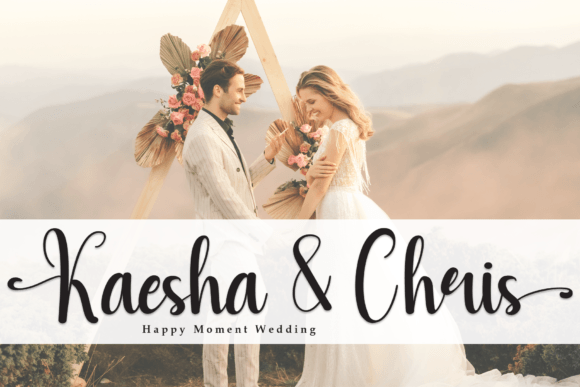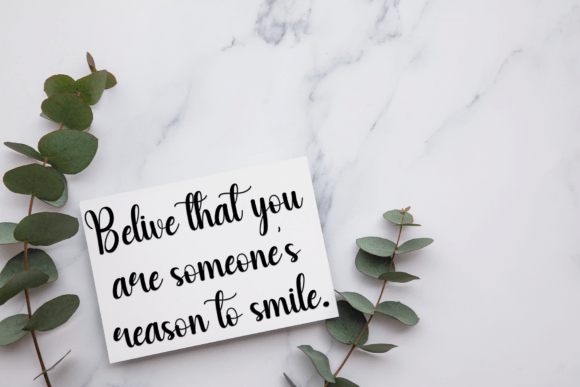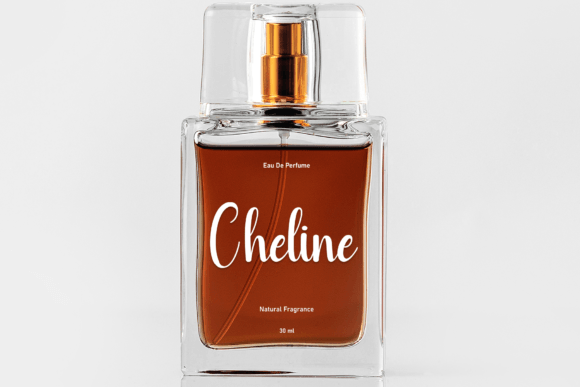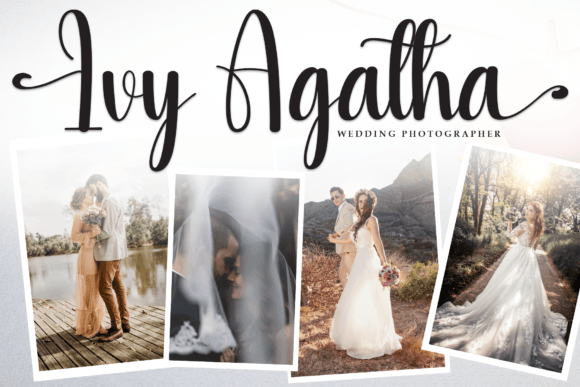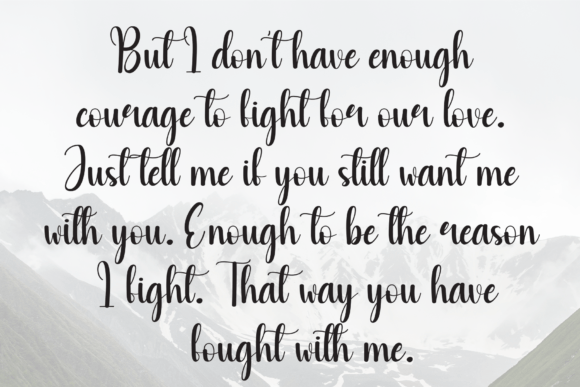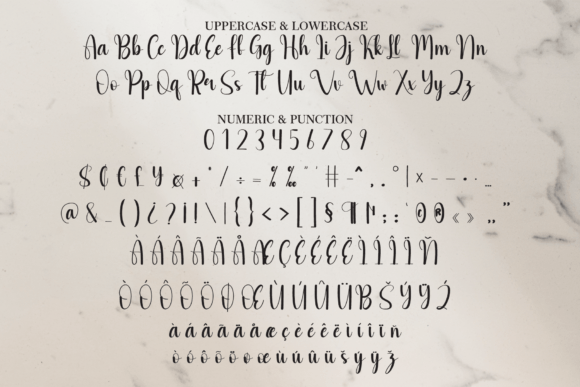
Introducing Advocate Font: The Sweet and Friendly Handwritten Font for Your Design Needs
Are you looking for a font that can add a touch of sweetness and friendliness to your designs? Look no further than Advocate Font! This beautiful handwritten font is perfect for creating wedding invitations, cards, and other designs that require a fun and playful touch. In this article, we’ll take a closer look at Advocate Font, its features, and how you can use it to elevate your designs.
What is Advocate Font?
Advocate Font is a sweet and friendly handwritten font that is designed to bring a touch of warmth and personality to your designs. Its fresh and cute style makes it ideal for a variety of projects, from wedding invitations and cards to social media graphics and more. Whether you’re a designer, crafter, or DIY enthusiast, Advocate Font is a great addition to your font collection.
Key Features of Advocate Font
- Handwritten style: Advocate Font has a beautiful handwritten style that gives it a personal and unique touch.
- Sweet and friendly: The font’s sweet and friendly style makes it perfect for designs that require a playful and approachable tone.
- Fresh and cute: Advocate Font’s fresh and cute style makes it ideal for designs that require a youthful and energetic vibe.
- Easy to read: Despite its playful style, Advocate Font is easy to read and understand, making it perfect for body text and headings.
Uses of Advocate Font
Advocate Font is a versatile font that can be used for a variety of design projects, including:
- Wedding invitations: Advocate Font is perfect for creating beautiful and unique wedding invitations that reflect the couple’s personality.
- Cards and stationery: The font’s sweet and friendly style makes it ideal for creating cards, stationery, and other paper crafts.
- Social media graphics: Advocate Font can be used to create fun and engaging social media graphics, such as quotes, posters, and ads.
- Branding and packaging: The font’s fresh and cute style makes it perfect for branding and packaging designs that require a playful and youthful vibe.
Tips for Using Advocate Font
Here are some tips for using Advocate Font in your designs:
- Pair it with other fonts: Advocate Font can be paired with other fonts to create a unique and interesting contrast.
- Use it for headings and titles: The font’s playful style makes it perfect for headings and titles, but it can also be used for body text.
- Experiment with colors: Advocate Font looks great in a variety of colors, so don’t be afraid to experiment and find the perfect color scheme for your design.
Advocate Font is a beautiful and versatile handwritten font that is perfect for designers, crafters, and DIY enthusiasts. Its sweet and friendly style makes it ideal for a variety of design projects, from wedding invitations and cards to social media graphics and more. With its fresh and cute style, easy readability, and versatility, Advocate Font is a great addition to any font collection.